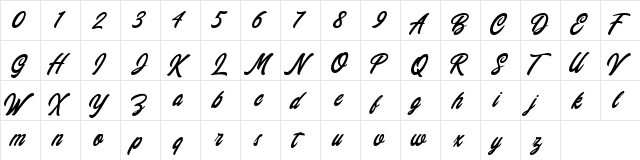
Chillout For Personal Use Regular
| Foundry | YdhraStudio |
| Designer | Yudha Rahmat Ageng |
Design Context for Chillout For Personal Use Typeface
Chillout For Personal Use is a composed and adaptable typeface that performs quietly and consistently across a wide range of design contexts.